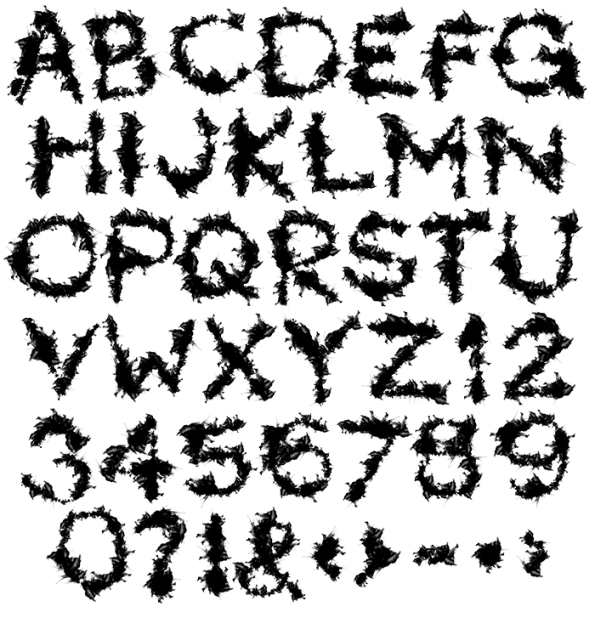
Deepblack Font
Snow White is black… back!
Snow White’s evil stepmother is in town again. She will definitely use Deepblack Font for ‘Snow White wanted!’ posters. Deepblack Font is hideous and horrendous enough for that. You can use Deepblack Font for some shocking advertisement or to illustrate politically oppositional points of view.
You can’t handle me!
Looks like Snowwhite’s evil stepmother is in town again. And she definitely used this font on her posters of “ Snowwhite wanted“! The Deepblack font is edgy and black. Letters are out of lines and it’s handmade with a certain secret technique. Very mysterios!
This font set contains all the elements besides letters, such as figures, punctuation marks.
All letters and glyphs that comprises this font you can see on the preview.